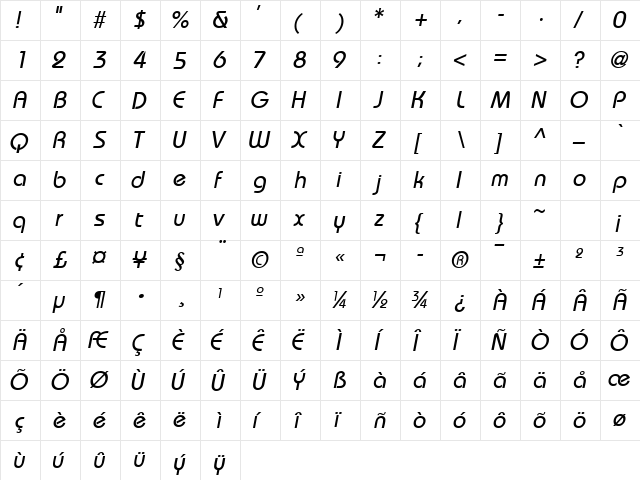
MumboSSK Italic
Design Context for MumboSSK Typeface
MumboSSK offers clean, dependable letterforms without strong stylistic allegiance, making it a practical choice for designers who need flexibility. The slanted form adds forward momentum and visual energy.
Pro Tip: Use MumboSSK for emphasis, pull quotes, and subheadings where its slanted energy can add rhythm to the layout.